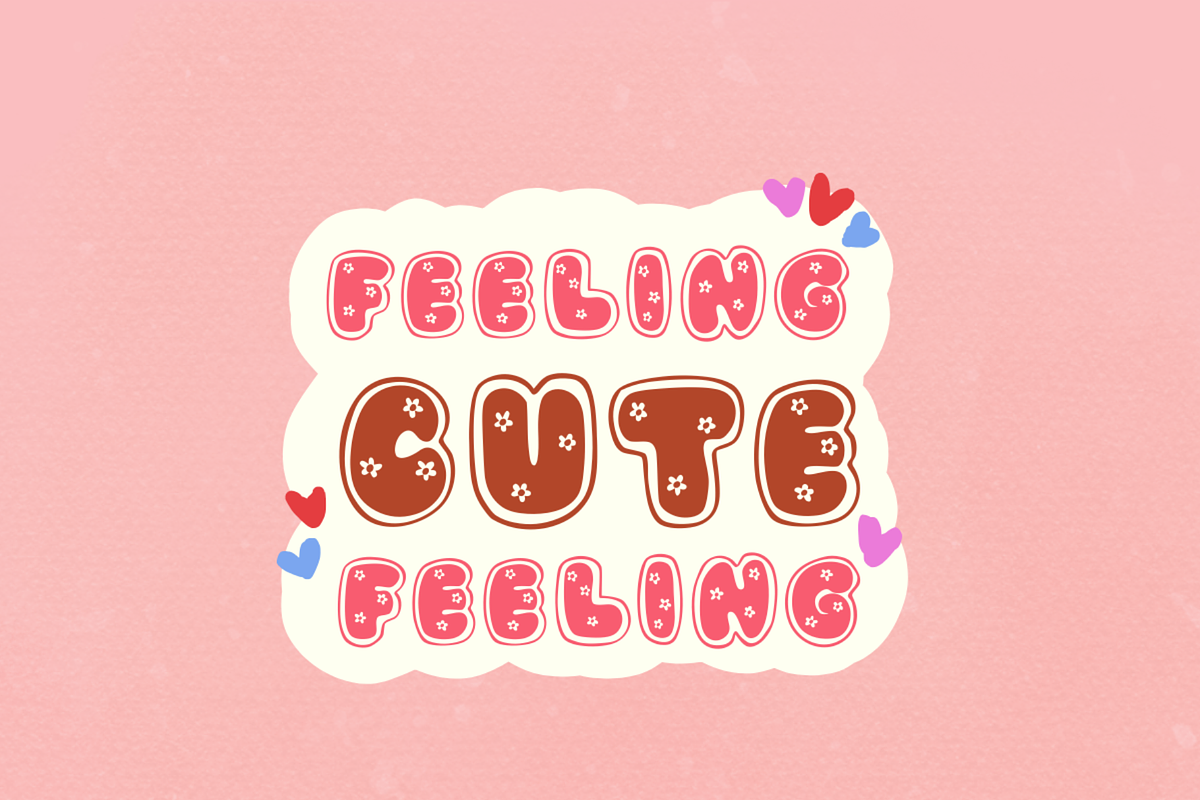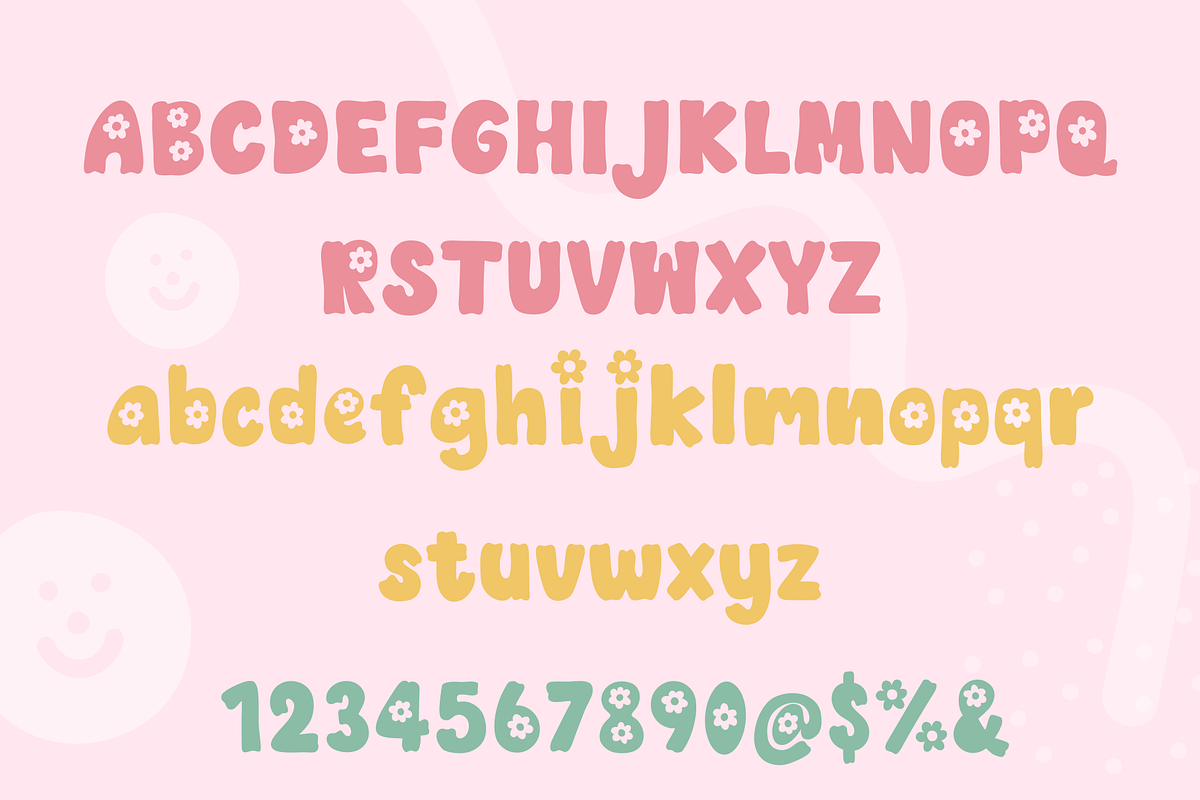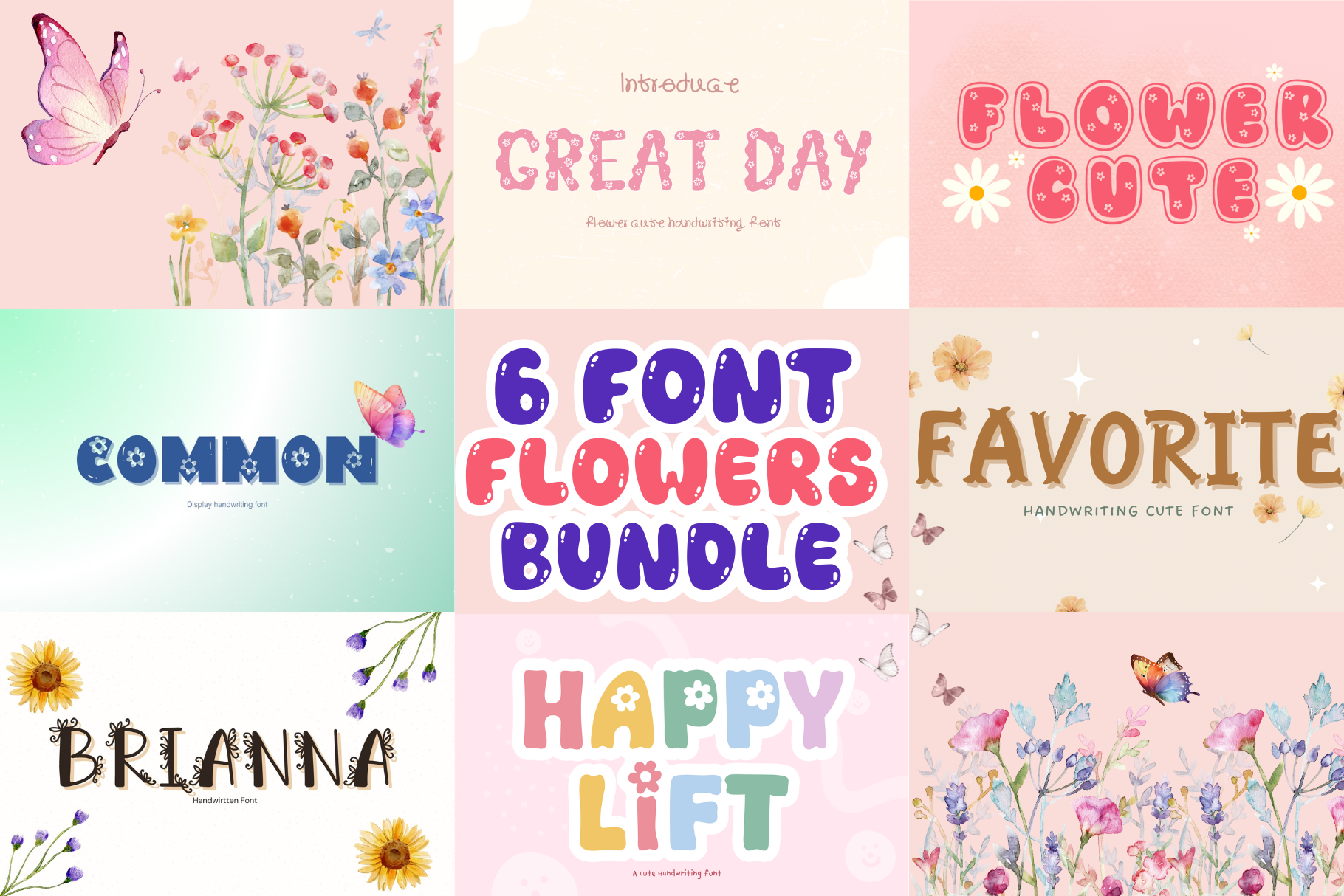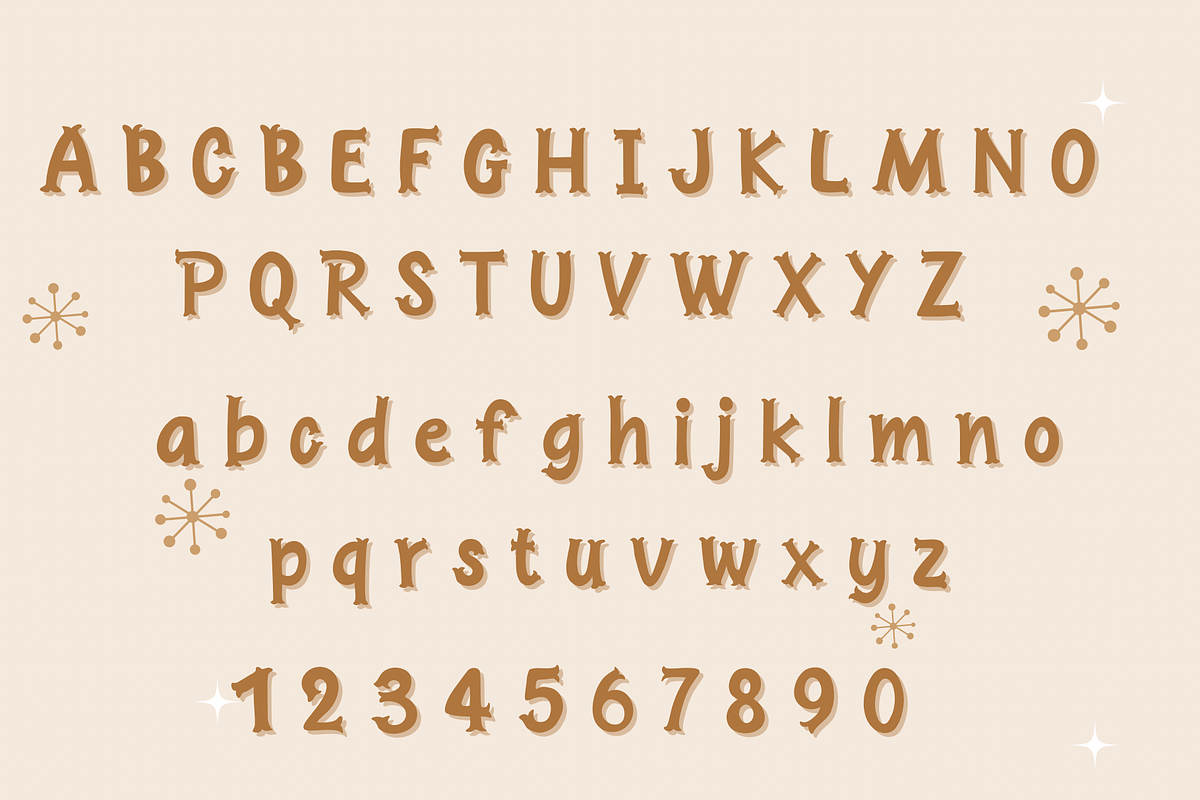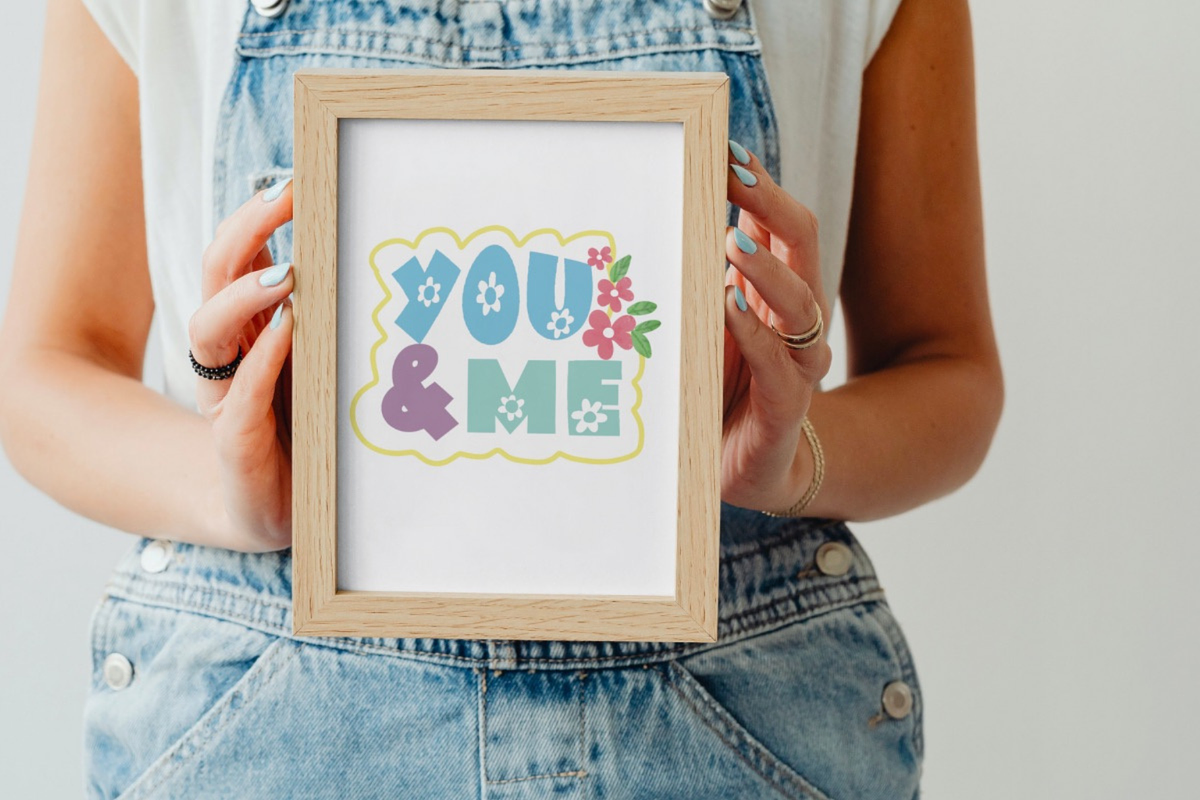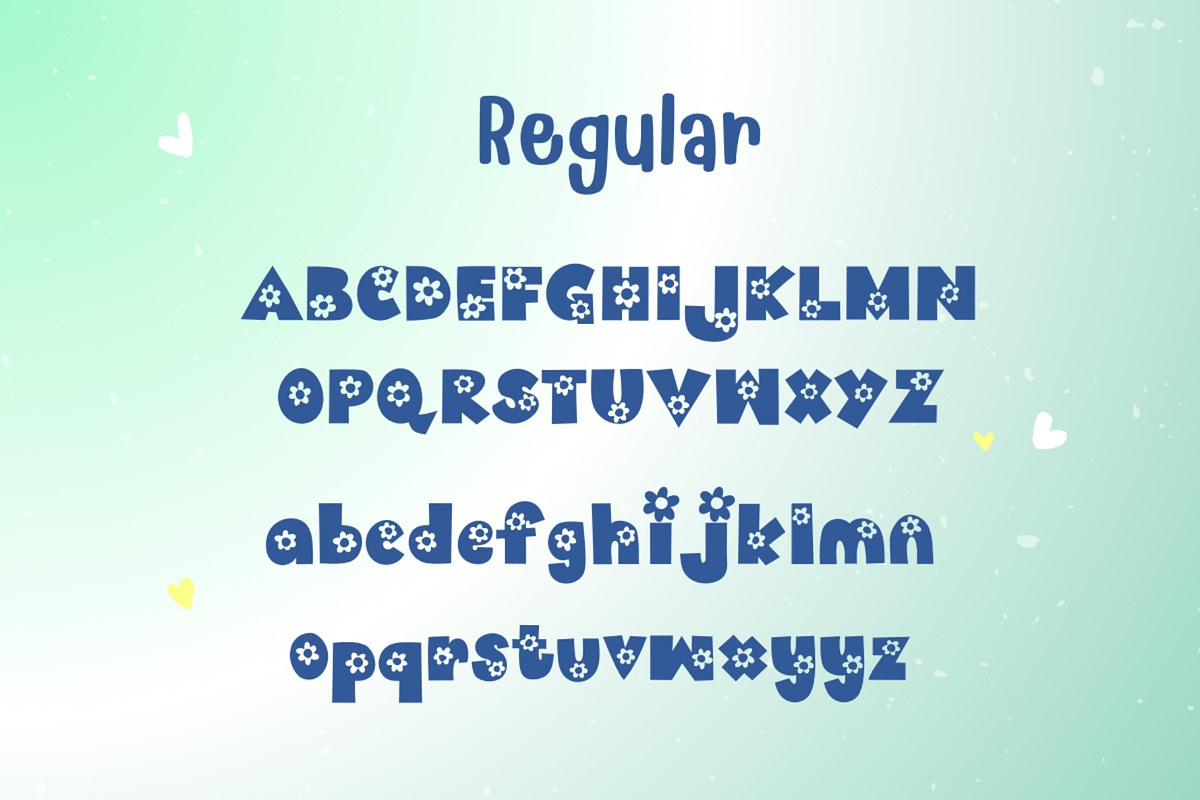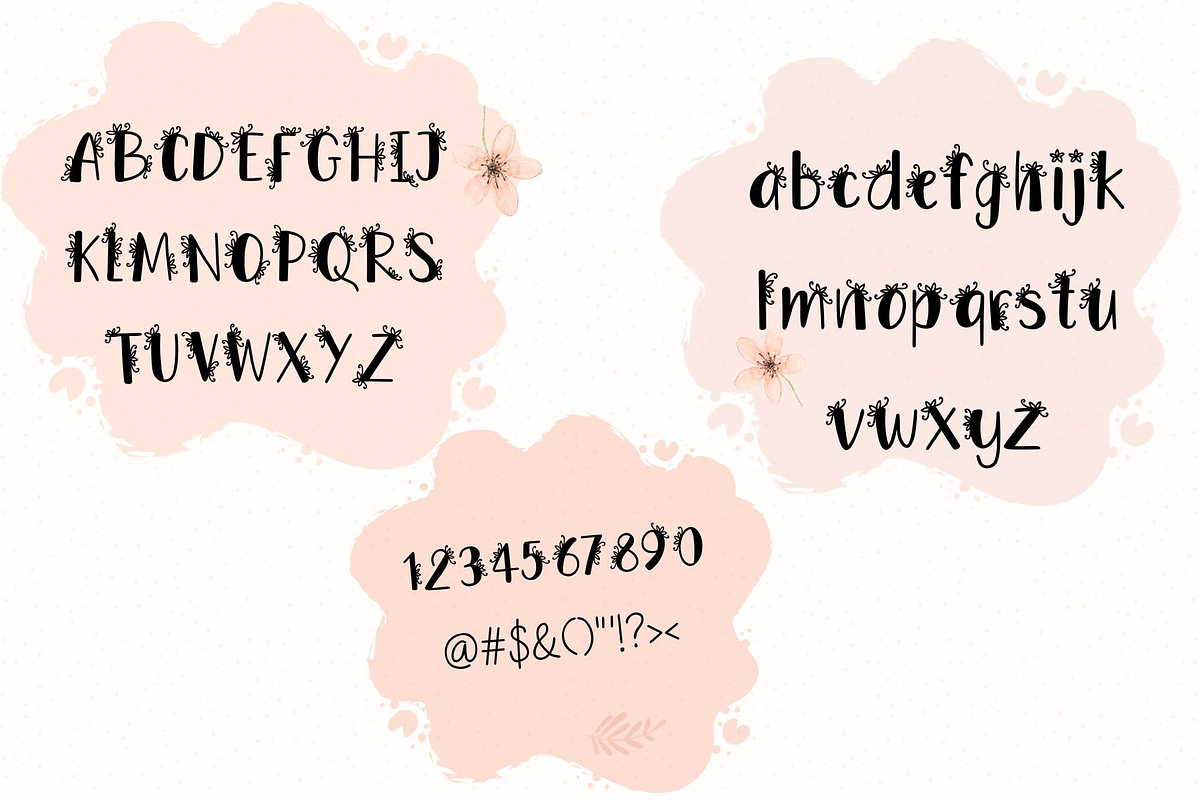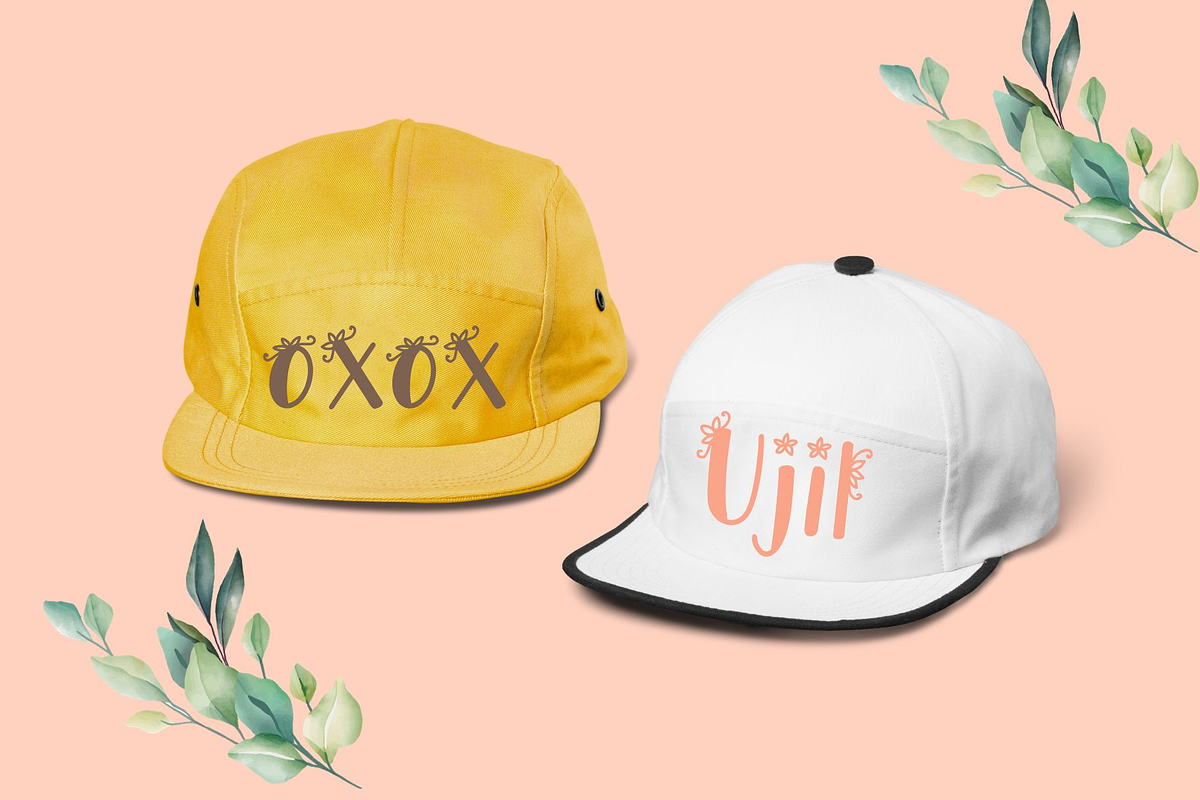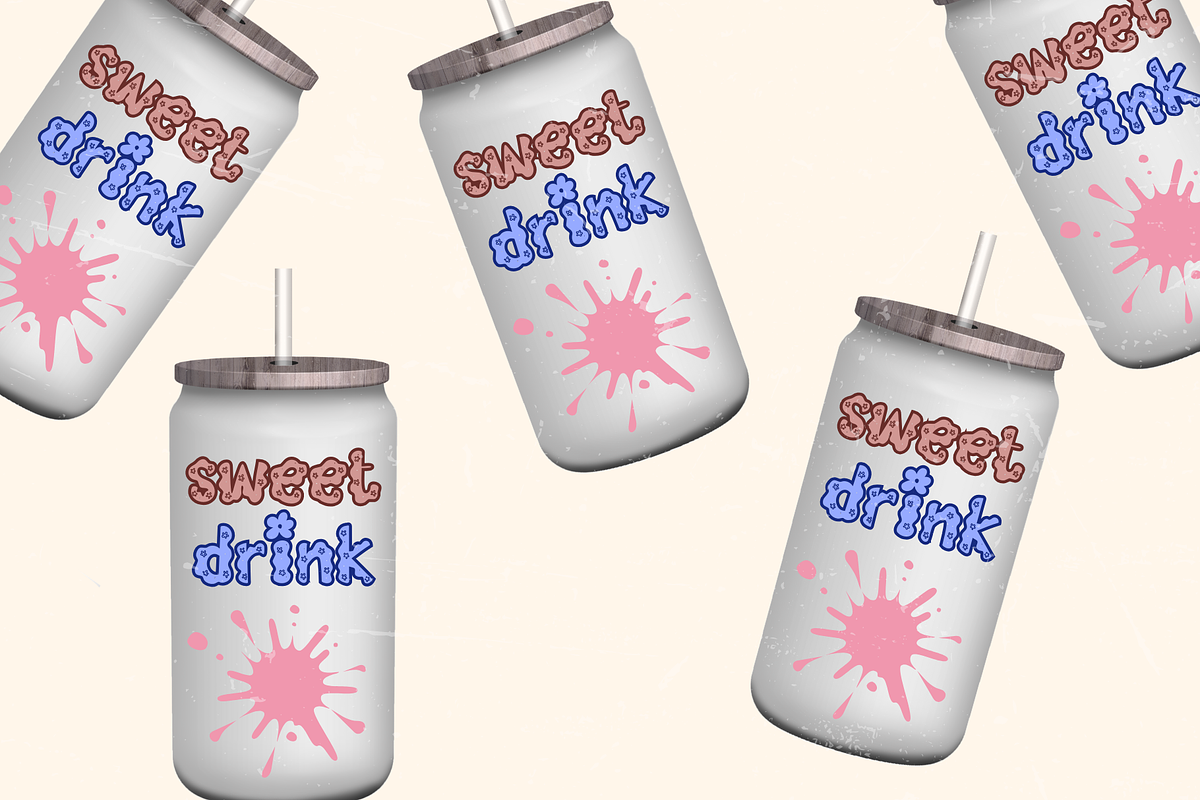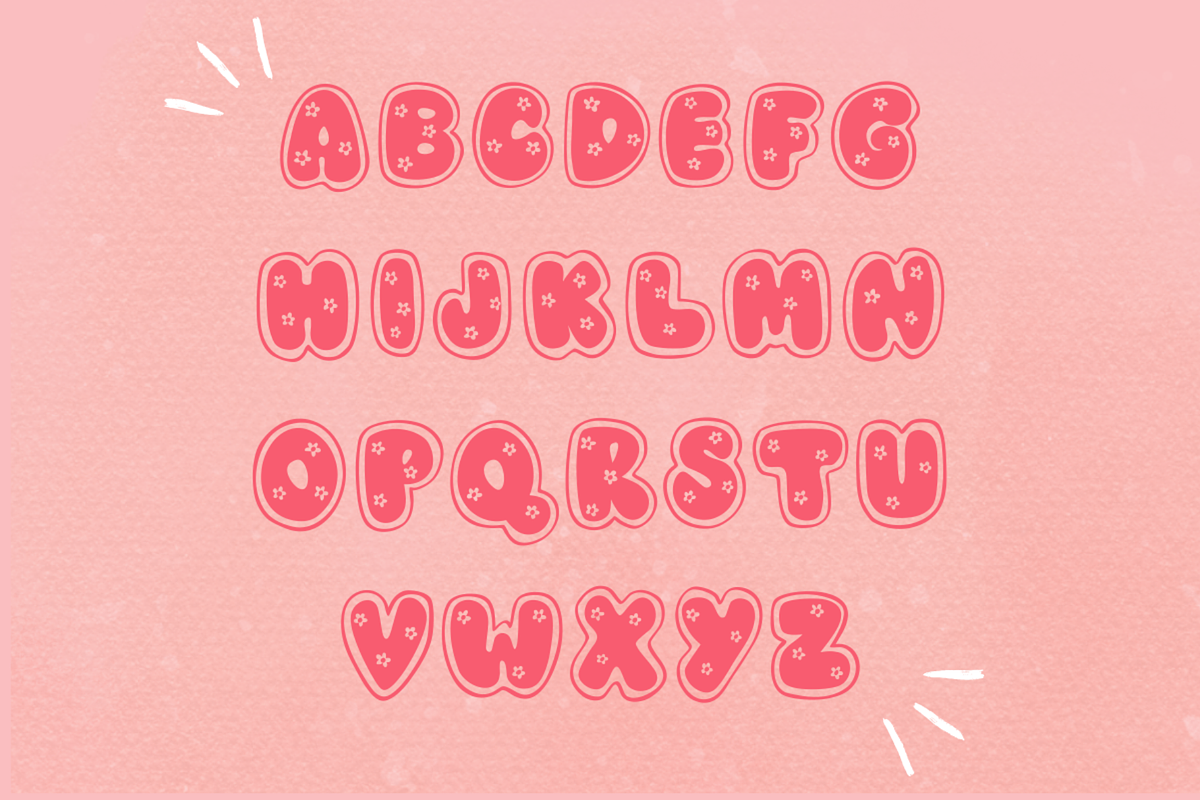
Flowers bundle font
6 font bundle "This is a set of cute and unique flower fonts that will bring fun and uniqueness to your designs! With this diverse design, you can use it for various types of design work such as designing shirts, bags, hats, cards, gifts, and many other products!
WHAT'S INCLUDED This font contains standard characters, lowercase, uppercase, numbers, punctuation and international characters.